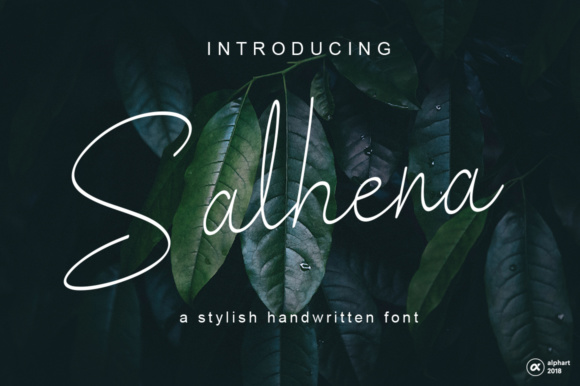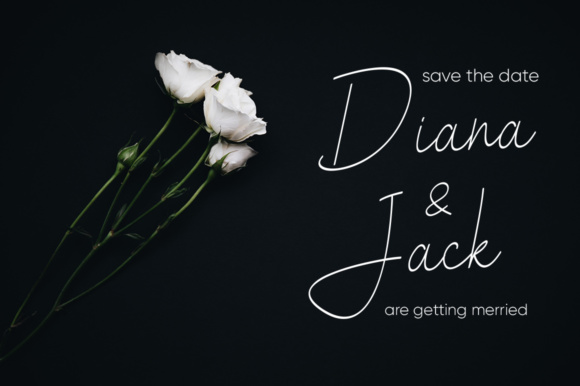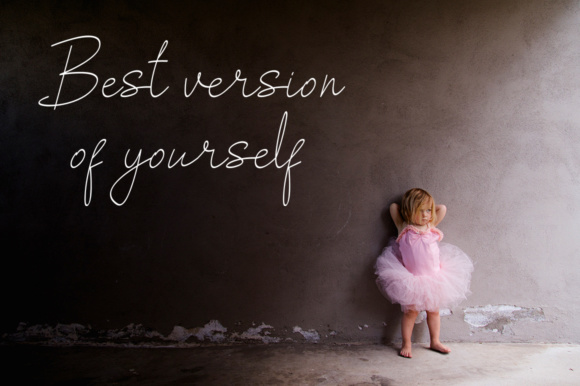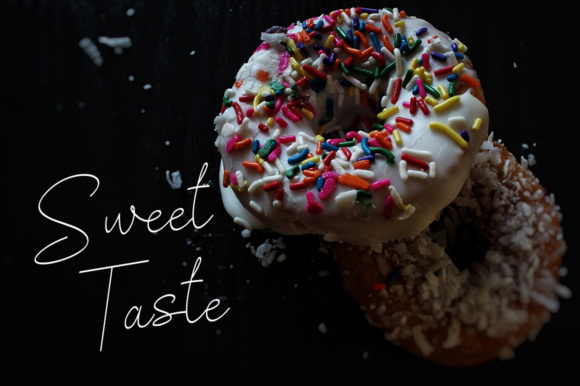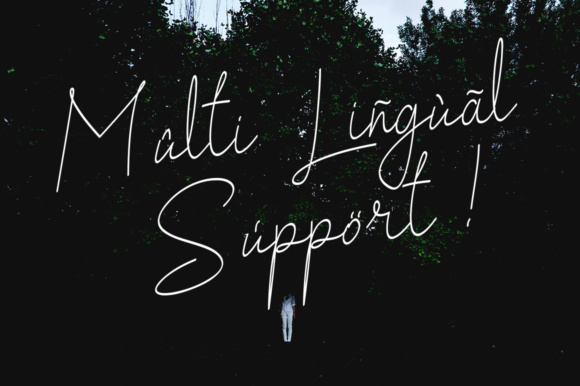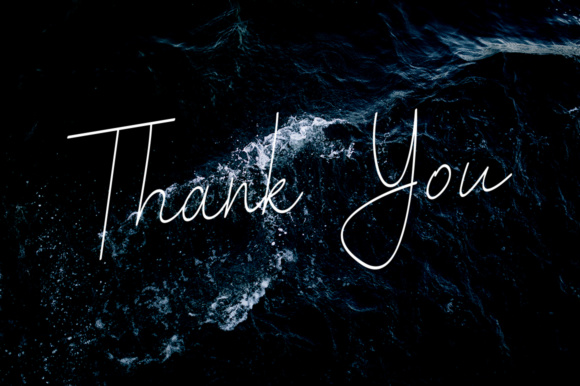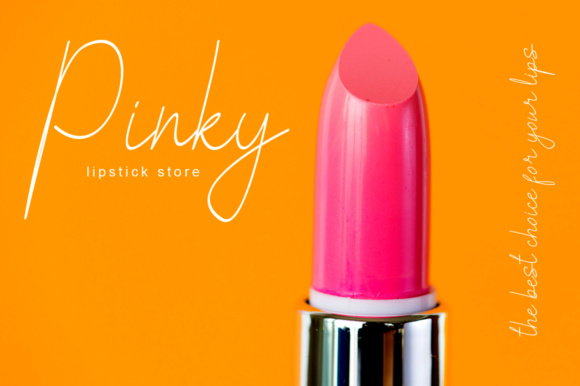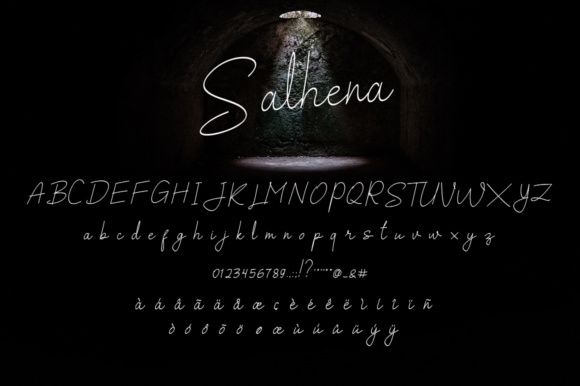
Salhena Font
About Salhena Font
Add a stylish handwritten touch to your designs with the new font Salhena. Sallhena is a modern handwritten font with feminine touches and beautiful curves on each letter. It offers you a multitude of possibilities in your professional type design projects.
Perfect for making a statement and to make beautiful typography designs.